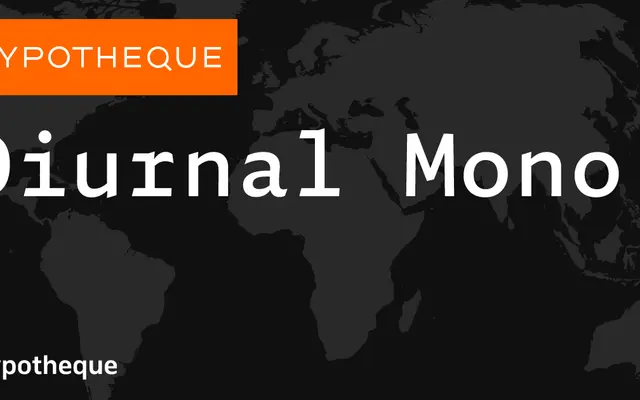
Diurnal Mono specimen from Typotheque
A five-weight monospaced family from Typotheque with matching italics across all weights, spanning Light to Black.
Diurnal Mono offers ten styles across five weights from Light to Black, each with a corresponding italic. The family sits within Typotheque's broader Diurnal type system and brings the fixed-pitch discipline to a range wide enough for editorial and interface work. Latin coverage is confirmed with a full glyph set.
Explicitly a monospaced family, classified as such by the foundry in its name and glyph structure. The regular, italic, and multiple weight range confirm a functional coding or editorial mono design.